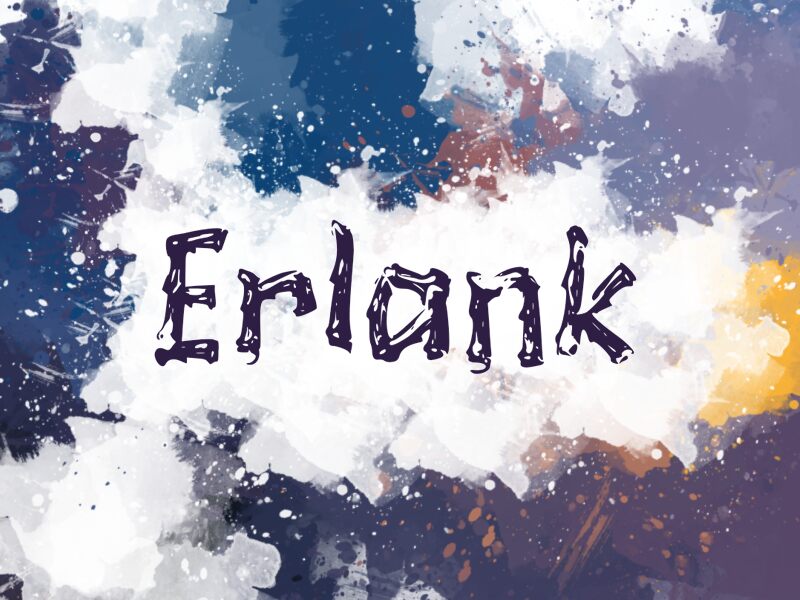
Erlank
Erlank, a captivating display font designed by wep, introduces a mesmerizing eroded style that adds texture and depth to any project. With its unique personality, Erlank is perfect for vintage-inspired logos, album covers, and movie titles that seek to evoke nostalgia and authenticity.
Its bold yet weathered appearance also lends itself well to poster designs for rock concerts or urban fashion events. Whether used in print or digital mediums, Erlank brings an edgy charm that instantly grabs attention and leaves a lasting impression.